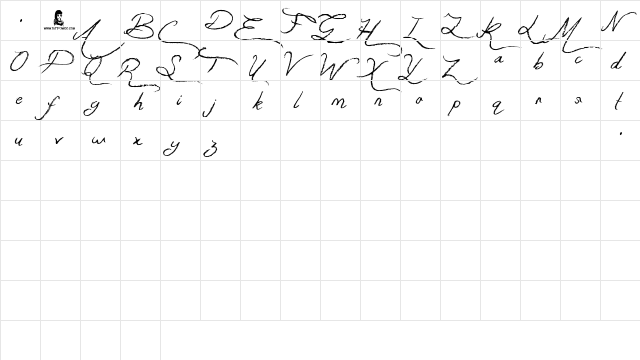
Get Richer Regular
| Foundry | Jonathan S. Harris |
| Designer | Jonathan S. Harris |
Design Context for Get Richer Typeface
Get Richer is a composed and adaptable typeface that performs quietly and consistently across a wide range of design contexts.